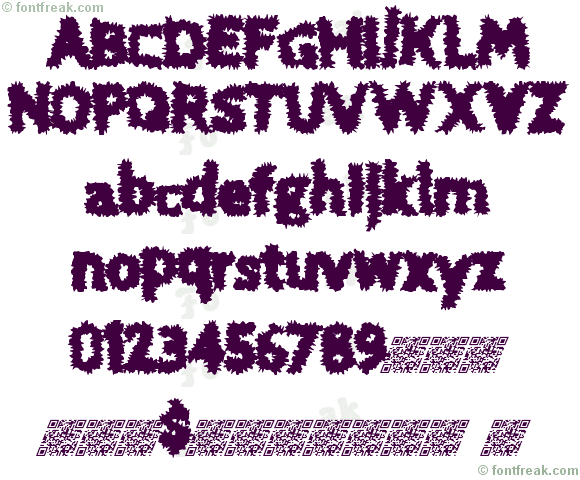
BiteTyme
BiteTyme, designed by XEROGRAPHER FONTS in 2013, is a unique display font that captures attention with its playful and whimsical character. This font falls into the display category, making it an excellent choice for projects that require a bold visual statement. The design features irregular stroke weights and a textured appearance, evoking a sense of spontaneity and creativity. The contrast between thick and thin lines adds depth, while the uneven spacing between letters gives it an organic feel, reminiscent of hand-drawn typography.
BiteTyme is ideal for a variety of use cases. It's particularly well-suited for children's book covers, where its fun and quirky style can engage young readers. Additionally, this font would shine in restaurant menus, especially those with a casual or eclectic theme, where it can convey a relaxed atmosphere. Event flyers and posters, particularly for music festivals or art shows, can benefit from the vibrant energy that BiteTyme brings. Furthermore, it works wonderfully for branding projects aimed at creative businesses, allowing them to express their unique identity.
The target audience for BiteTyme includes graphic designers, small business owners, and content creators looking to add a distinctive touch to their projects. Whether you’re crafting a logo, designing merchandise, or creating online content, this font provides a playful yet impactful option.